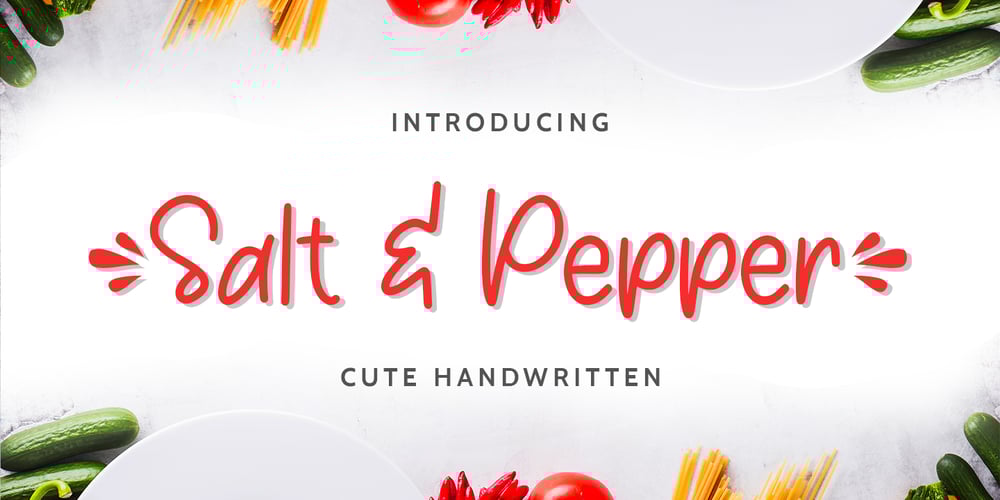
Salt & Pepper
Salt & Pepper font
Salt & Pepper Font Family was designed by Abdul Malik Wisnu and published by Almarkha Type. Salt & Pepper contains 1 styles and family package options. Salt & Pepper is cute handwritten, but also Crafty. This versatile script font has a wide range of applications ranging from greeting cards to kids’ crafts, and is guaranteed to add a sweet touch to your next design.